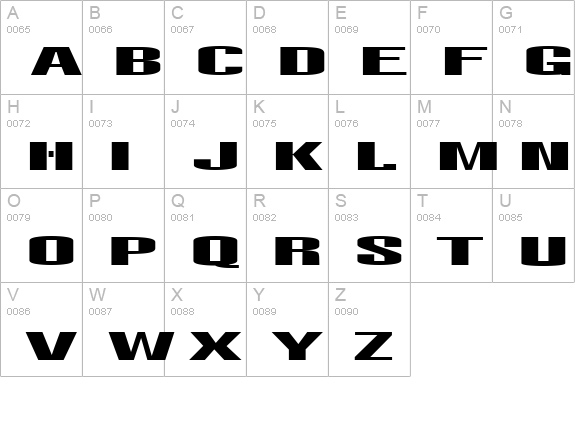
Euratom Font Details
Euratom font is a stunning typeface with a unique and modern design that is sure to make your projects stand out. This elegant font features clean lines and a sleek look that is perfect for a wide range of design applications. With its bold yet sophisticated style, Euratom font is ideal for logos, branding, headlines, and more. What's even better is that Euratom font is completely free to download at FontsMarket.com. This means you can easily access this beautiful font and use it in your projects without any cost. Whether you're a designer, blogger, or business owner, Euratom font is a fantastic choice for adding a touch of class to your work. Download it today and elevate your designs with this exceptional typeface.